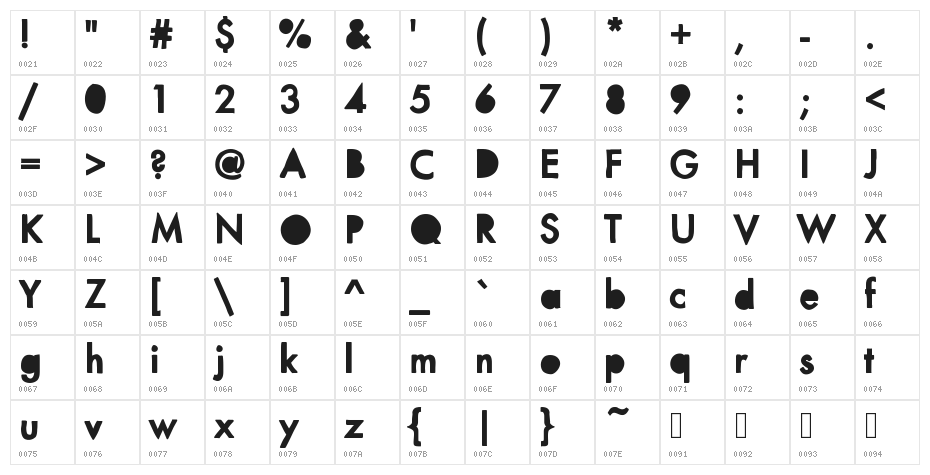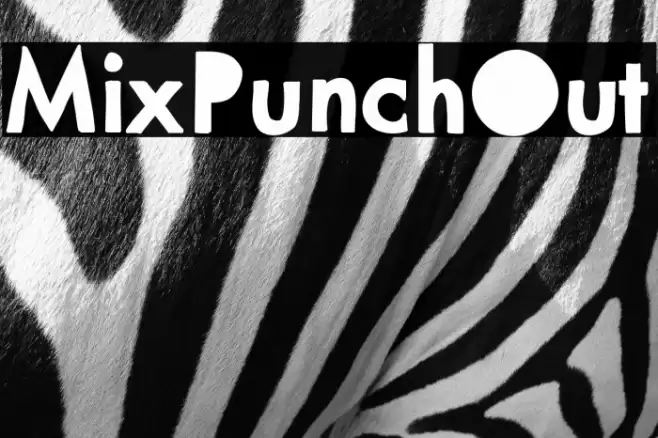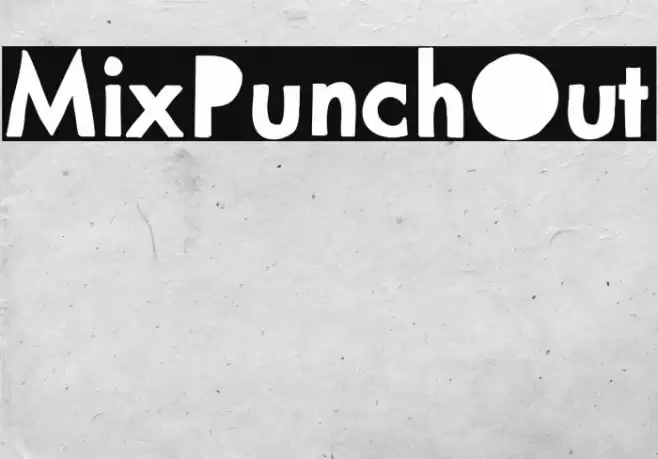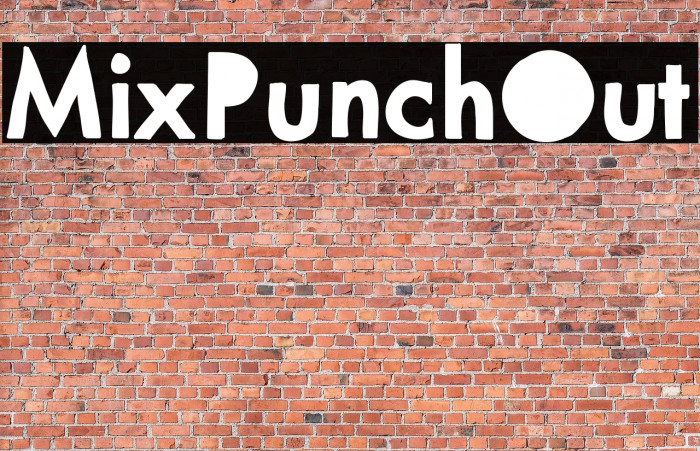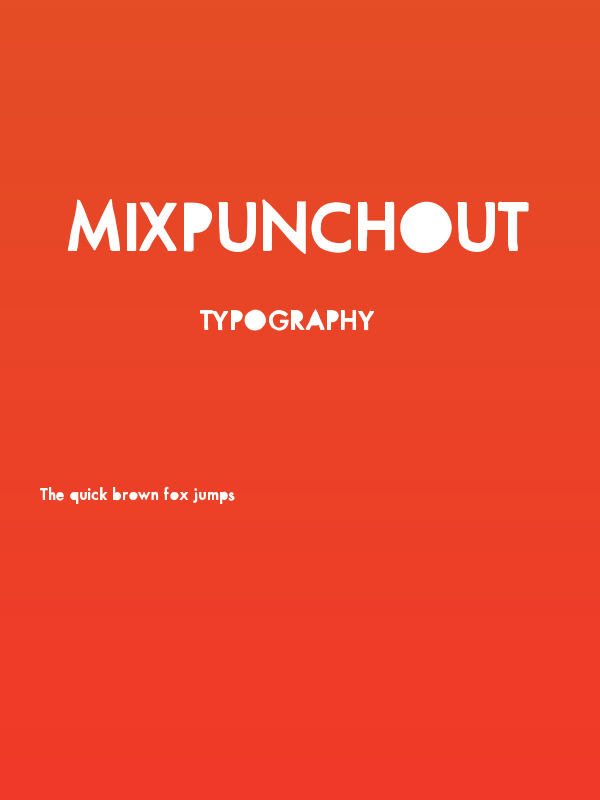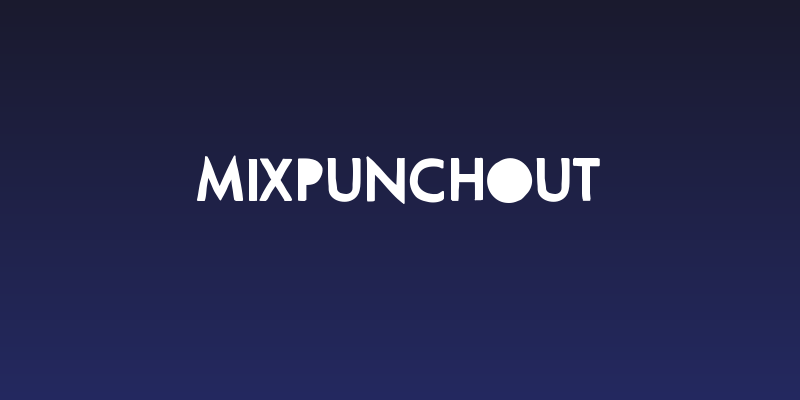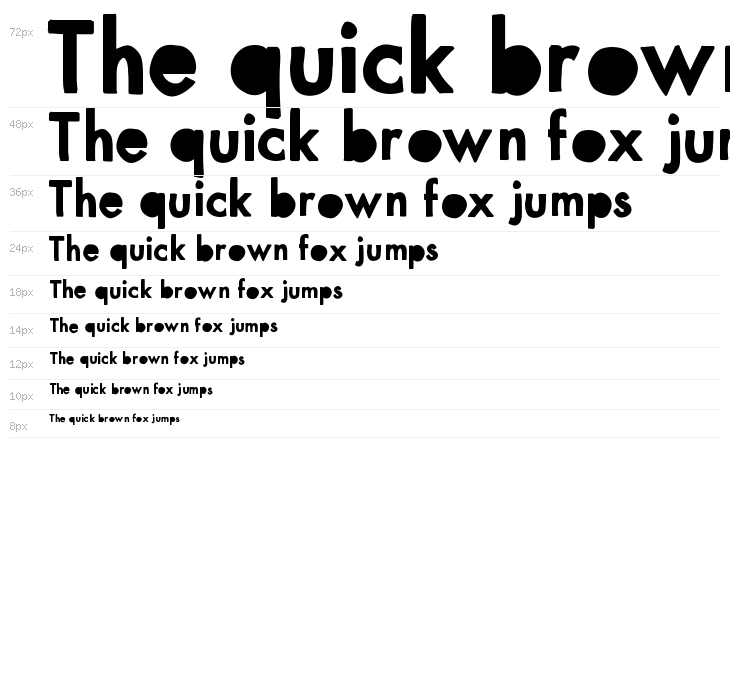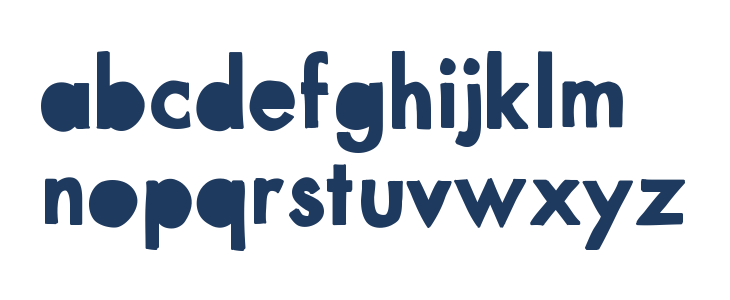
MixPunchOut Font
MixPunchOut Description
This font features a bold and playful design with a distinctly rounded and slightly irregular form. The uppercase letters are robust with a strong presence, while the lowercase letters maintain a consistent weight, giving the font a cohesive look. The numbers are equally bold, ensuring visibility and readability. Special characters are designed to match the playful and bold aesthetic, making them suitable for attention-grabbing headlines. The overall style is reminiscent of retro and vintage designs, yet it maintains a modern appeal. The font's unique character shapes and bold weight make it ideal for creative projects that require a fun and engaging visual impact.
| Overall Style | Vintage, Modern |
| Proposed Projects | Ideal for posters, children's books, branding, and any project needing a playful, bold aesthetic. |